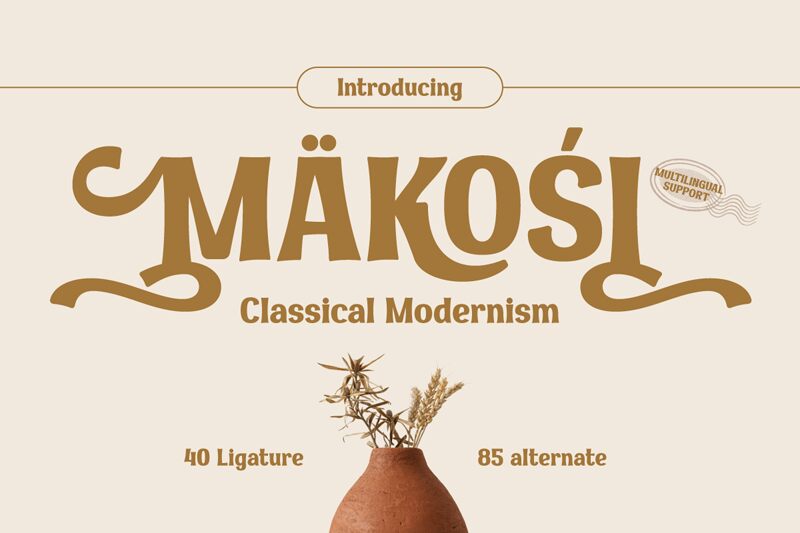
MAKOSItrial Regular
Makosi, a captivating serif font designed by Twinletter, exudes a bold and commanding presence. With its strong, geometric letterforms and distinctive angular serifs, this font radiates an air of confidence and authority. The sharp, uniform strokes and balanced proportions lend Makosi an air of sophistication, making it an ideal choice for high-impact branding, editorial layouts, and attention-grabbing headlines.
Makosi's versatility extends beyond its striking visual appeal. Its robust, sturdy construction and clear legibility make it a practical selection for a wide range of applications, from impactful posters and signage to sophisticated web design and prestigious corporate communications. This font's versatility and adaptability ensure it can seamlessly integrate into diverse design projects, lending a sense of gravitas and visual impact wherever it is employed.